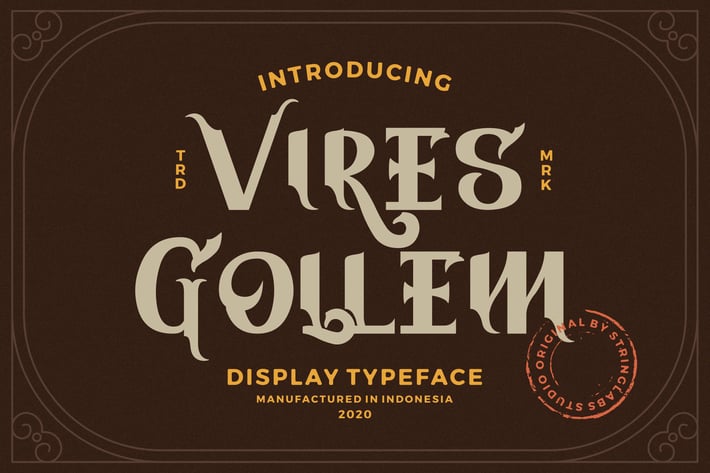
Vires Gollem - Display Font
Introducing Vires Gollem - Display Font
Vires Gollem is a unique and modern decorative display font. This playfully conceptual typeface font will look truly outstanding in a wide range of contexts.
- Stylistic Alternates
Vires Gollem is a unique and modern decorative display font. This playfully conceptual typeface font will look truly outstanding in a wide range of contexts.
- Stylistic Alternates